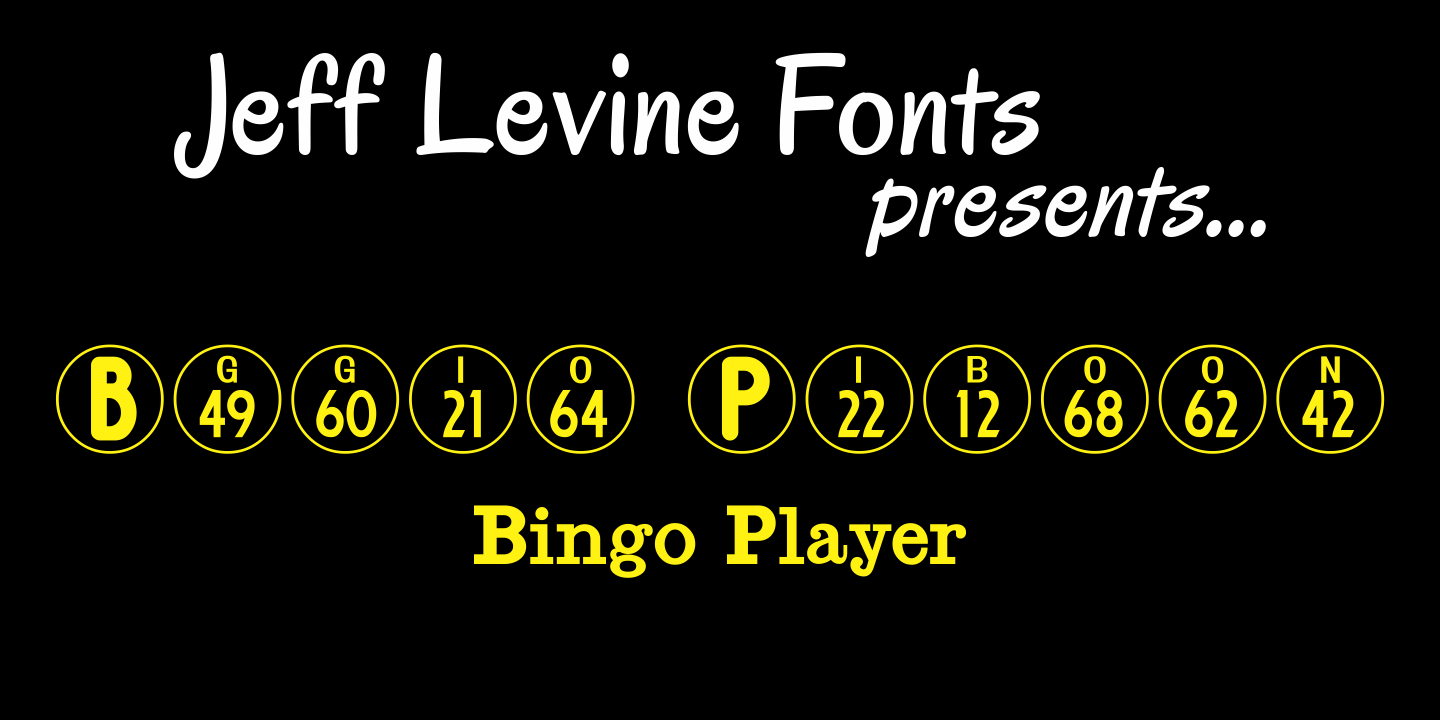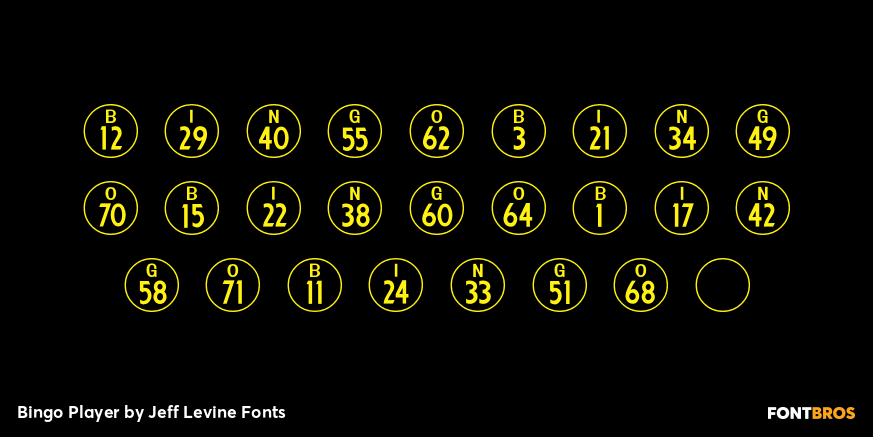
Bingo Player
Bingo Player JNL is a thorough reworking of Jeff Levine's old freeware font – cleanly redrawn with fresh glyphs and a set of "alphabet balls" for creating short headlines.
To match the fonts in these dingbats for other text applications, use Shopkeeper JNL, Trade Journal Wide JNL and Market JNL.